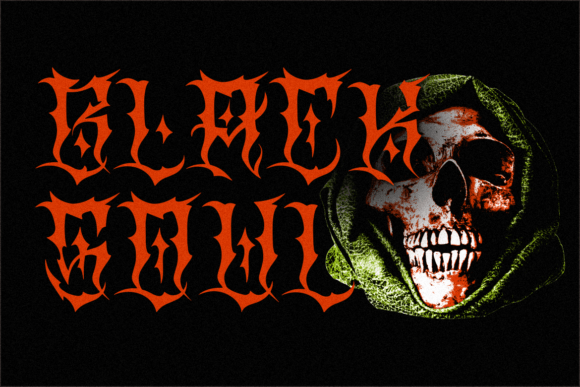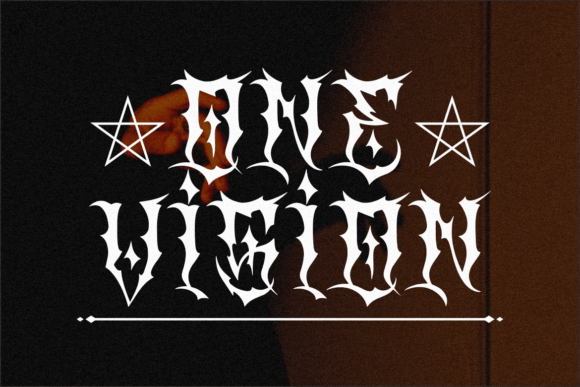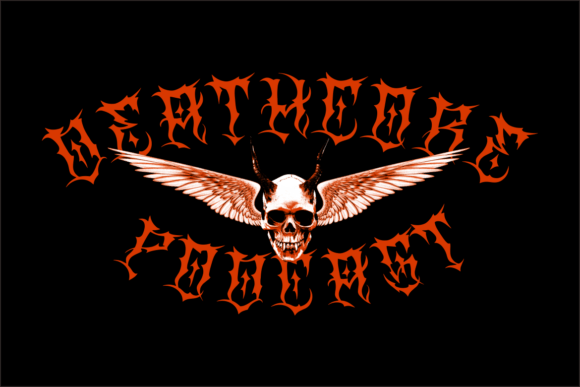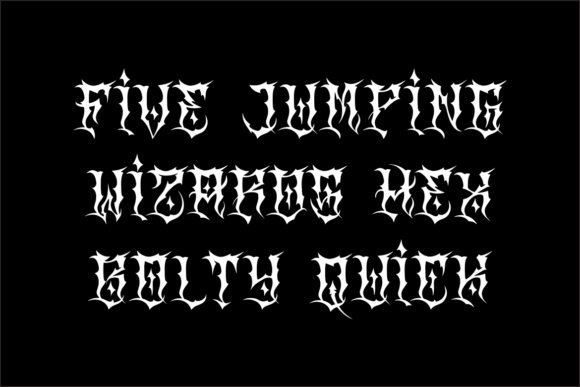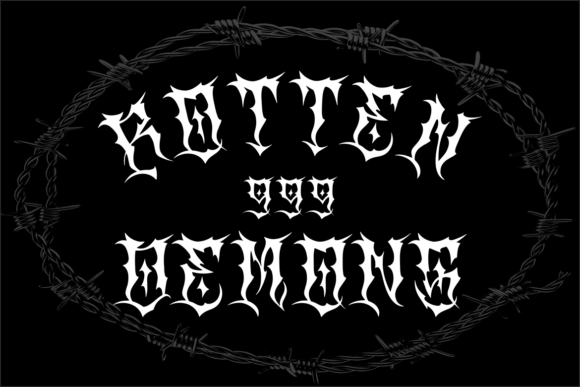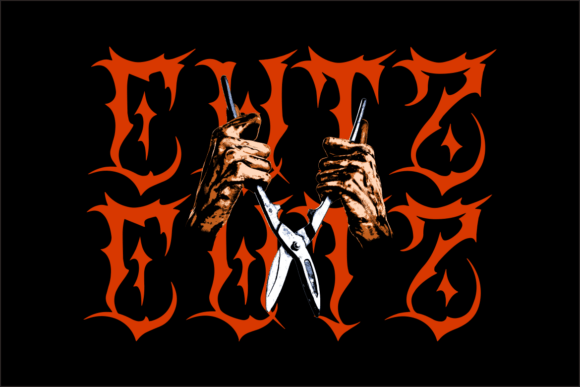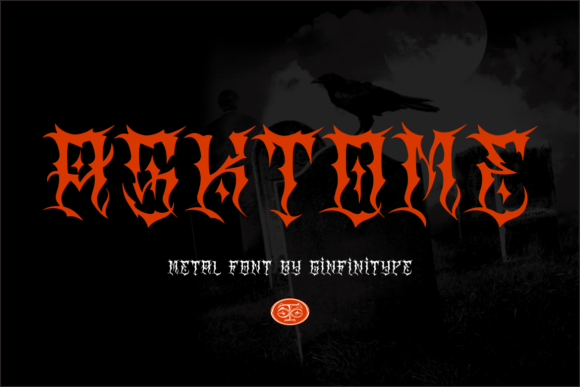
Unleash the Power of Metal with Asktome Font
Are you a designer, artist, or crafty enthusiast looking to add a touch of raw energy and intensity to your creations? Look no further than Asktome, a striking font crafted to capture the essence of metal music. Perfect for band merchandise, album covers, posters, and promotional materials, Asktome embodies the uncompromising spirit of metal heads.
The Inspiration Behind Asktome
Asktome is more than just a font – it’s an attitude, a statement, and a way to express your passion for metal music. The font’s design is inspired by the sharp angles, bold lines, and uncompromising style of metal aesthetics. With Asktome, you can infuse your designs with the same energy and intensity that fuels the metal music scene.
Key Features of Asktome Font
- Sharp Angles and Bold Lines: Asktome’s design is characterized by sharp angles and bold lines, giving it a rugged and uncompromising look that resonates with metal fans.
- Perfect for Metal-Inspired Designs: Whether you’re creating band merchandise, album covers, or promotional materials, Asktome is the perfect choice to capture the essence of metal music.
- Highly Versatile: Asktome can be used for a wide range of design projects, from logos and graphics to posters and flyers.
- Easily Readable: Despite its bold and edgy design, Asktome remains easily readable, making it perfect for use in various design applications.
Use Cases for Asktome Font
Asktome is an incredibly versatile font that can be used in various design projects. Here are some use cases to get you started:
- Band Merchandise: Create eye-catching t-shirts, hoodies, and other merchandise for metal bands with Asktome.
- Album Covers: Design striking album covers that capture the essence of metal music with Asktome.
- Posters and Flyers: Create bold and attention-grabbing posters and flyers for metal concerts, festivals, and events.
- Logos and Branding: Use Asktome to create edgy and powerful logos for metal bands, record labels, and music-related businesses.
Tips for Using Asktome Font
To get the most out of Asktome, here are some tips to keep in mind:
- Experiment with Different Sizes: Asktome looks great in various sizes, from small text to large headlines.
- Pair with Complementary Fonts: Combine Asktome with complementary fonts to create visually striking designs.
- Play with Colors: Asktome looks great in bold and bright colors, so don’t be afraid to experiment with different color schemes.
Asktome is a powerful and striking font that’s perfect for designers, artists, and crafty enthusiasts who want to add a touch of metal to their creations. With its sharp angles, bold lines, and uncompromising style, Asktome embodies the raw energy and intensity of metal music. Whether you’re creating band merchandise, album covers, or promotional materials, Asktome ensures your designs stand out with an edgy, powerful presence. So why wait? Download Asktome today and unleash the power of metal in your designs!